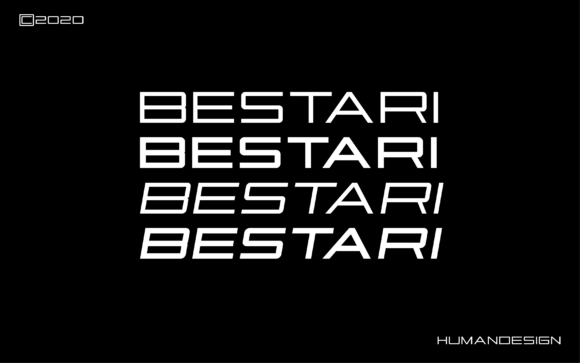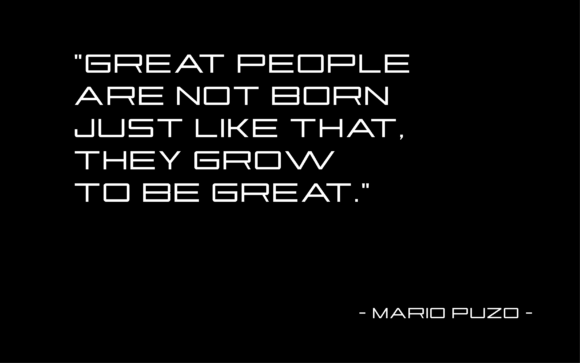
Introducing Bestari Font: The Ultimate Modern Sans Serif for Your Designs
Are you tired of using the same old fonts in your designs? Look no further! Bestari Font is here to revolutionize your creative projects with its sleek, modern, and clean sans serif style. This versatile font is perfect for designers, crafters, and anyone looking to add a touch of sophistication to their work.
What is Bestari Font?
Bestari is a neat, clean, and modern sans serif font that can easily fit into any project idea. Its simplicity and elegance make it an excellent choice for a wide range of applications, from branding and advertising to packaging and digital media. With Bestari Font, you can add a professional touch to your designs and take them to the next level.
Key Features of Bestari Font
- Modern Sans Serif Style: Bestari Font boasts a contemporary sans serif design that is both stylish and legible.
- Clean and Simple: The font’s clean lines and simple shapes make it perfect for designs that require a minimalist approach.
- Versatile: Bestari Font can be used in a variety of projects, from print materials to digital media, and is suitable for both personal and commercial use.
- Easily Readable: The font’s clear and concise design ensures that your text is easily readable, even at small sizes.
Benefits of Using Bestari Font
So, why choose Bestari Font for your designs? Here are just a few benefits of using this amazing font:
- Enhance Your Brand’s Visual Identity: Bestari Font can help you create a consistent visual brand that stands out from the competition.
- Increase Legibility: The font’s clean design ensures that your text is easily readable, making it perfect for body text, headings, and titles.
- Save Time: With Bestari Font, you can quickly and easily create professional-looking designs without spending hours searching for the perfect font.
- Stand Out from the Crowd: Bestari Font’s unique style will help your designs stand out from the crowd and leave a lasting impression on your audience.
How to Use Bestari Font in Your Designs
Using Bestari Font in your designs is easy! Here are a few tips to get you started:
- Pair it with Other Fonts: Bestari Font works well with other fonts, so don’t be afraid to experiment with different combinations to create a unique look.
- Use it for Headings and Titles: The font’s bold and clean design makes it perfect for headings and titles.
- Experiment with Different Sizes: Bestari Font looks great at a variety of sizes, so don’t be afraid to experiment to find the perfect size for your design.
In conclusion, Bestari Font is a game-changer for designers and crafters looking to add a touch of modern sophistication to their work. Its clean, simple, and elegant design makes it perfect for a wide range of projects, from branding and advertising to packaging and digital media. So why wait? Add Bestari Font to your designs today and notice the impact it has on your creations!